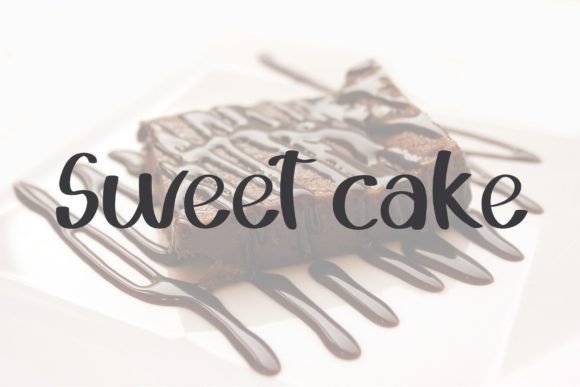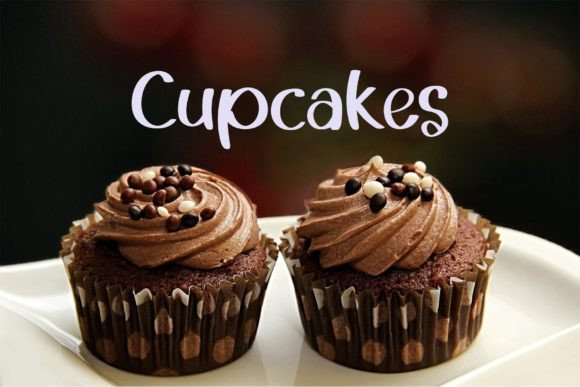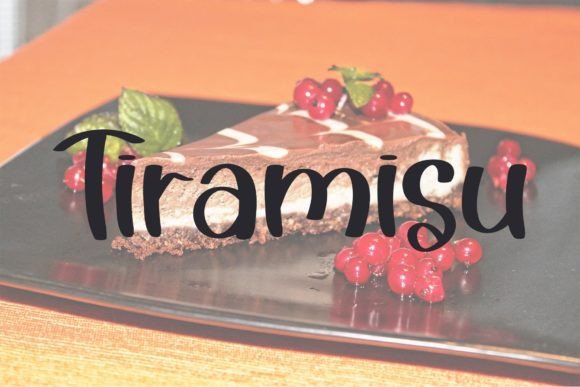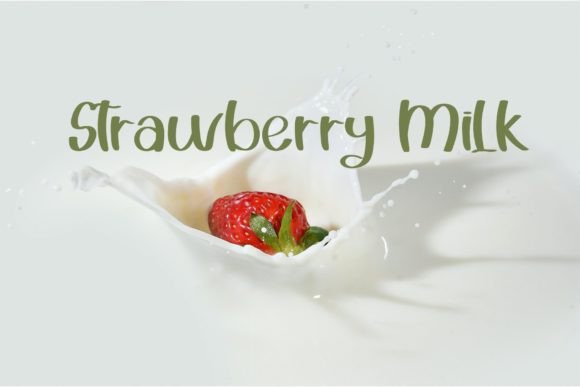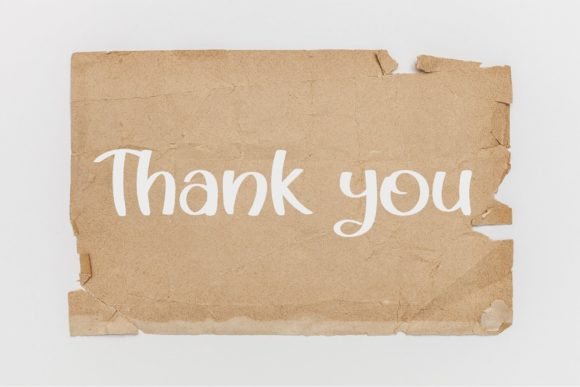
Butter Chocolate Font
About Butter Chocolate Font
“Butter Chocolate” is a stylish handwritten font that exudes a contemporary atmosphere while maintaining impeccable form, drawing inspiration from timeless classic calligraphy. This balanced and varied font is meticulously designed to enhance the beauty of your projects with a touch of sophistication and modernity.
The contemporary vibe of Butter Chocolate makes it suitable for a wide range of design applications. Whether you’re working on invitations, branding, or any creative project, the font’s stylish handwritten elements contribute to a fresh and current aesthetic.
The balanced and varied nature of Butter Chocolate ensures versatility in your designs. Its well-crafted form allows for a harmonious look across different contexts, making it a reliable choice for creating visually appealing projects.
In summary, Butter Chocolate is more than just a font; it’s a design asset crafted to bring a stylish and contemporary atmosphere to your projects. Let Butter Chocolate be the choice that enhances the beauty of your designs, adding a touch of timeless elegance with a modern twist.